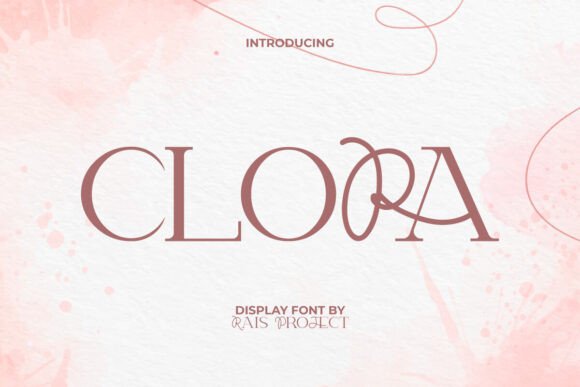
Introducing Clora Font: Elevate Your Designs with Elegance and Luxury
In the world of typography, fonts play a crucial role in conveying the tone and personality of a brand or design. Among the numerous fonts available, Clora Font stands out as a sophisticated and luxurious serif display font that can instantly elevate your designs. With its unique combination of styles, Clora Font offers a stunning visual appeal that can be applied to various design projects. In this article, we’ll explore the features and benefits of Clora Font and how it can enhance your designs.
Key Features of Clora Font
• Elegant and Luxurious Design: Clora Font boasts an elegant and luxurious design, making it perfect for high-end brands and sophisticated designs.
• Unique Serif Display Font: This font features a unique serif design that sets it apart from other fonts, giving your designs a distinctive look.
• Minimalist Character: Clora Font has a minimalist character that ensures clarity and readability, even at smaller font sizes.
• Two Different Types of Fonts: The font comes with two different types of fonts: Script and Serif, offering versatility and flexibility in your designs.
Design Applications of Clora Font
Clora Font’s versatility makes it suitable for a wide range of design applications, including:
• Brand Image: Establish a strong brand identity with Clora Font’s elegant and luxurious design.
• Cover Design: Create eye-catching book covers, magazine covers, or album covers with Clora Font’s unique serif design.
• Custom Design: Use Clora Font to create custom designs for various projects, such as brochures, catalogs, or social media graphics.
• Flyer and Invitation: Design elegant flyers and invitations for events, parties, or conferences with Clora Font.
• Label and Packaging: Enhance your product packaging with Clora Font’s sophisticated design.
• Marketing Material: Use Clora Font in your marketing materials, such as brochures, posters, or billboards, to create a lasting impression.
• Menu Design: Create elegant menus for restaurants, cafes, or hotels with Clora Font.
• Poster and Signage: Design eye-catching posters and signage with Clora Font’s unique serif design.
• Product Packaging: Elevate your product packaging with Clora Font’s luxurious design.
• Quote and Typography: Use Clora Font to create stunning typography and quotes for social media, blogs, or websites.
• Stationery: Design elegant stationery, including letterheads, envelopes, and business cards, with Clora Font.
• Website Page: Enhance your website’s typography with Clora Font’s elegant and luxurious design.
Benefits of Using Clora Font
Using Clora Font in your designs offers several benefits, including:
• Enhanced Visual Appeal: Clora Font’s unique serif design and elegant style can instantly elevate the visual appeal of your designs.
• Increased Readability: The font’s minimalist character ensures clarity and readability, even at smaller font sizes.
• Versatility: Clora Font’s two different types of fonts (Script and Serif) offer flexibility and versatility in your designs.
• Time-Saving: With Clora Font, you can save time and effort in designing and editing your typography.
• Professional Look: Clora Font’s luxurious design can give your designs a professional and sophisticated look.
Tips and Tricks for Using Clora Font
To get the most out of Clora Font, here are some tips and tricks:
• Experiment with Font Sizes: Try different font sizes to create visual hierarchy and emphasis in your designs.
• Combine with Other Fonts: Pair Clora Font with other fonts to create a unique and visually appealing typography.
• Use in Headings and Titles: Use Clora Font in headings and titles to create a strong visual impact.
• Pay Attention to Line Spacing: Adjust line spacing to ensure readability and clarity in your designs.
Clora Font is an elegant, luxurious, and unique serif display font that can elevate your designs to the next level. With its minimalist character, two different types of fonts, and versatility, Clora Font is suitable for a wide range of design applications. By using Clora Font, you can enhance the visual appeal of your designs, increase readability, and create a professional and sophisticated look. Whether you’re a designer, marketer, or business owner, Clora Font is an excellent choice for your typography needs.